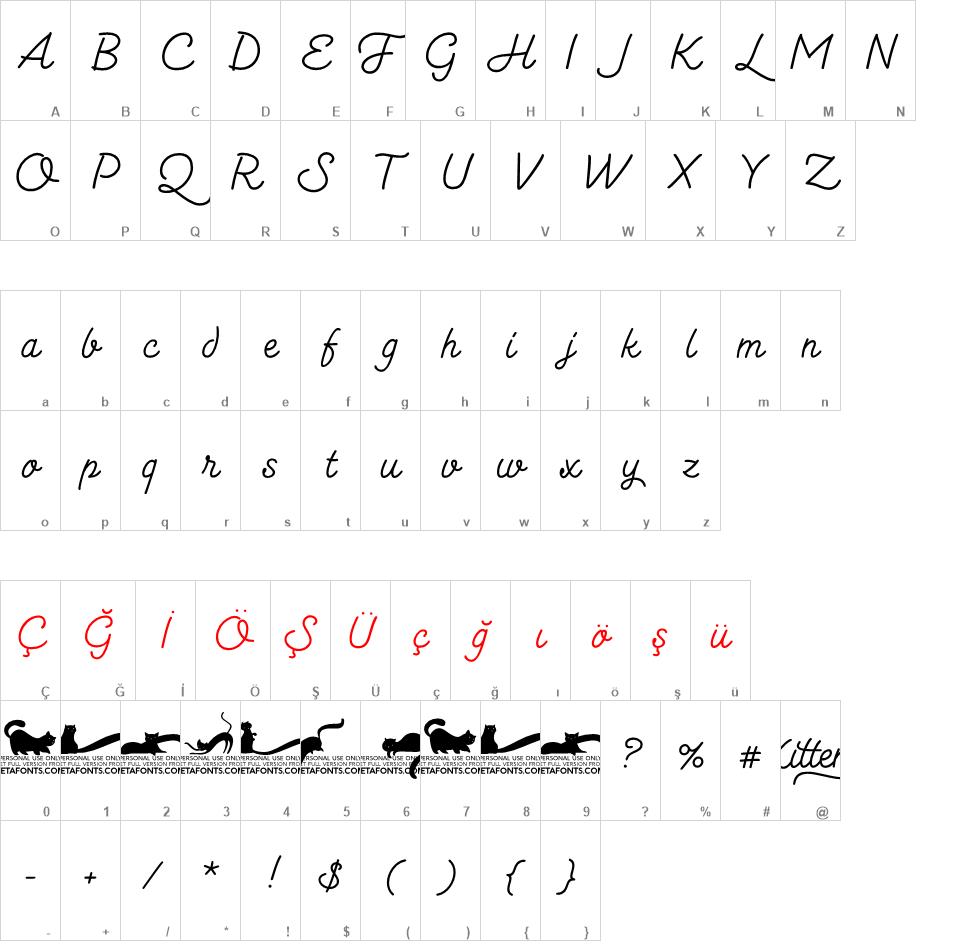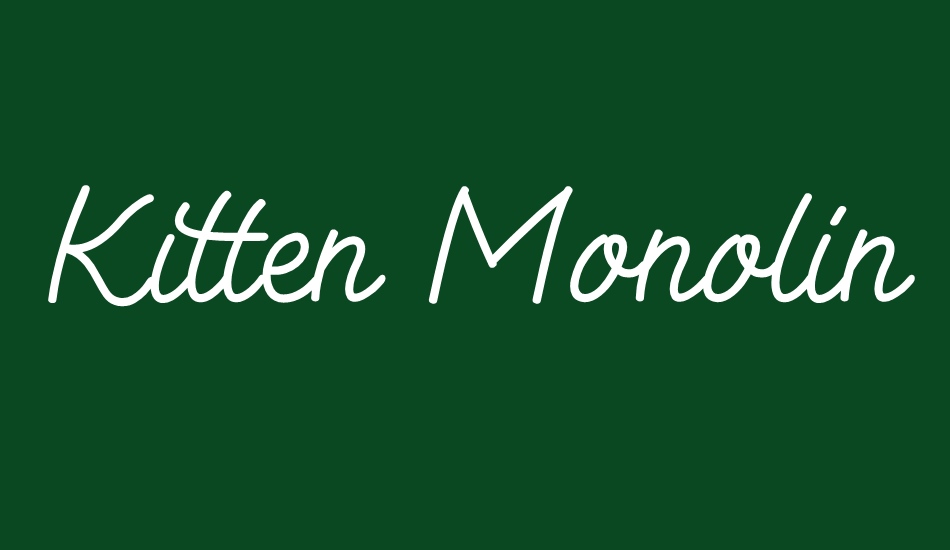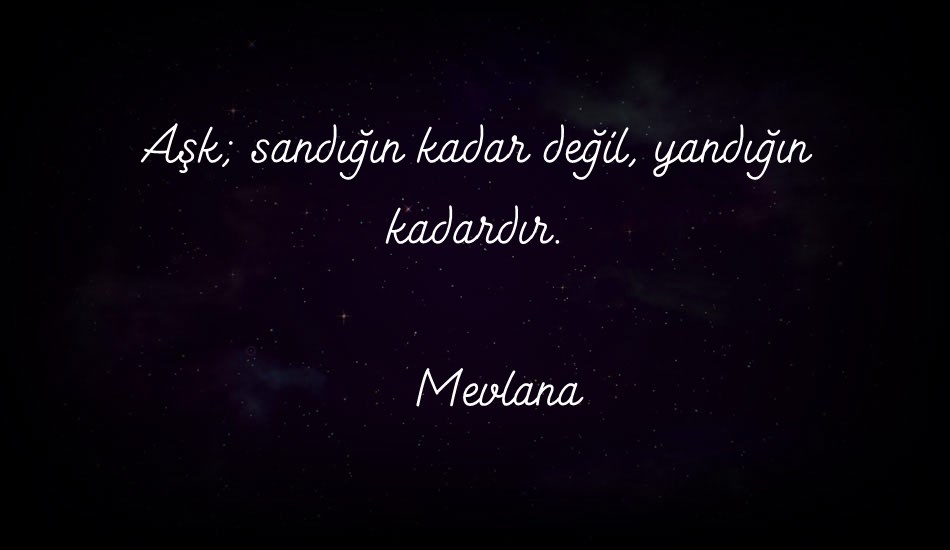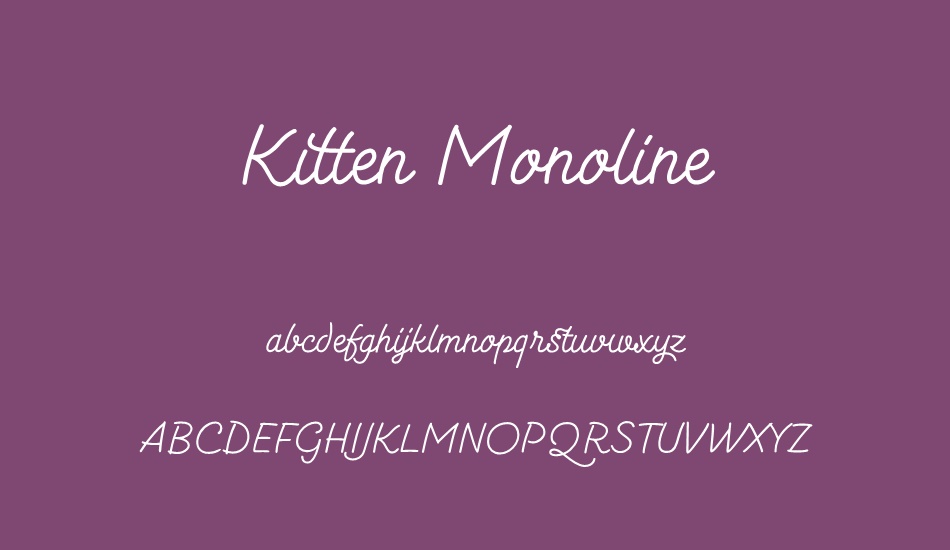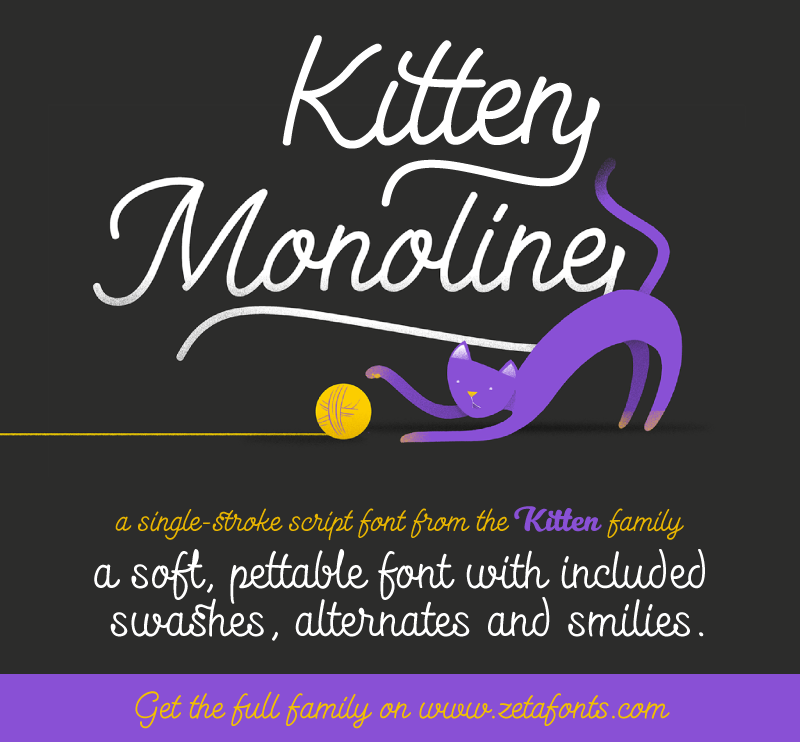
Kitten Monoline font
Kitten monoline is the single-stroke version of Kitten, a multi weight script family with a signpainter aestethic and a wide range of variants, alternates and ligatures designed by Cosimo Lorenzo Pancini, with cat dingbats designed by Isabella Ahmadzadeh.
Kitten monoline thin, elegant curves are perfect for mimicking carefully handlettered texts for invitations, or to type side notes to text suggesting careful writing.
Kitten moonline covers over 40 languages that use the Latin alphabet, with a full range of accents and diacritics. It comes in four weights and has five style variants: Regular, Slant, Swash, Monoline and Fat.
Kitten monoline makes full use of Open Type substitutions to avoid letter clashes in uppercase and provide ligatures. Swashes can be accessed through glyph palette or by typing one to six underscores after the letter. A space followed by one to eight underscores produces different cat silouhettes.
Open type features include: swash capitals, ending swashes (just type underscores after words to get them), clashless all caps writing in the swash version and a wide array of ligatures for a more handmade, natural look.